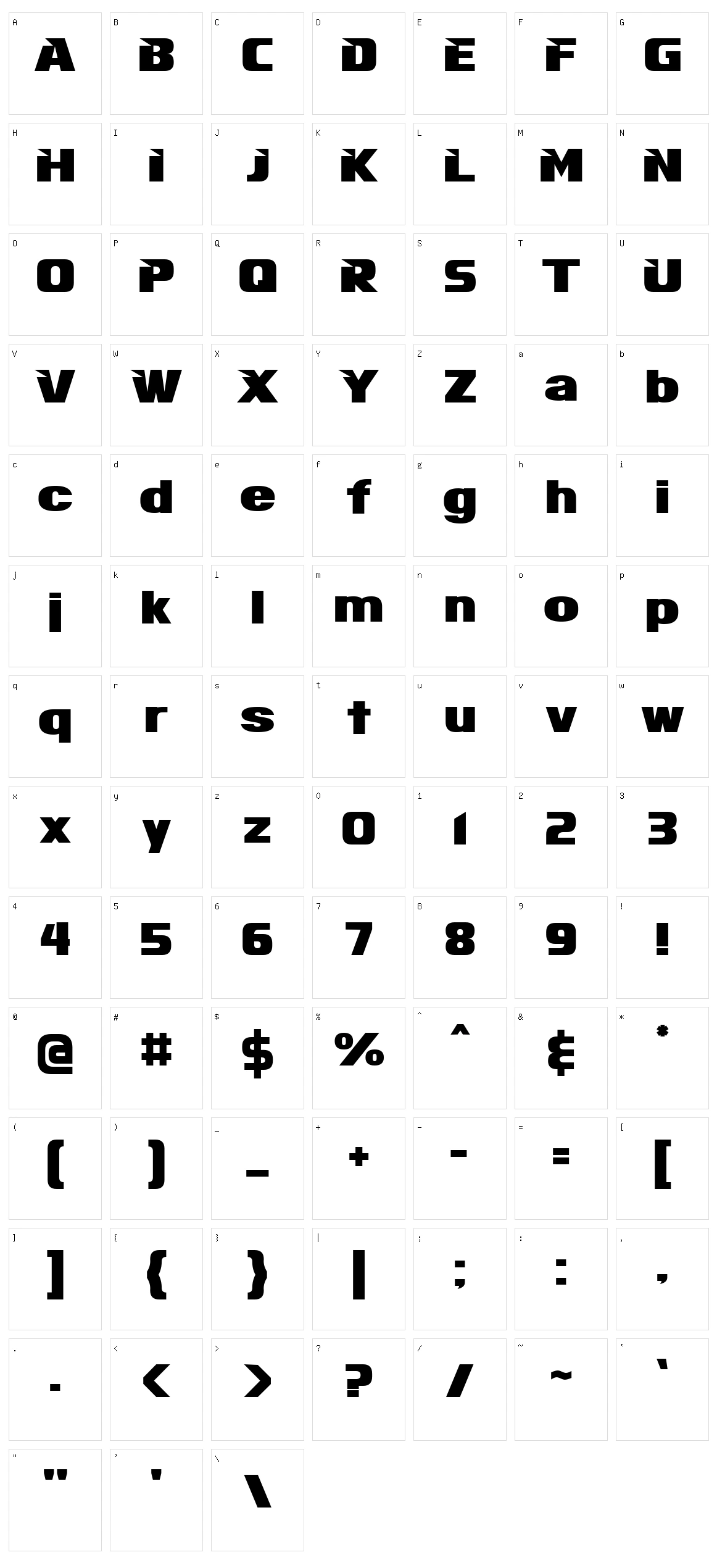
Infinite Justice
Designed by: Insanitype
Thanks for downloading "Infinite Justice" from Insanitype! Font Design. This font is based on the ACDelco font and dedicated to the thousands who losts their lives in the attacks on the World Trade Center in New York and the Pentagon. This is the cleanest font I've done yet, and it works very well at small sizes (it's readable down to at least 7 points anti-aliasing turned off and somewhat readable another 2 points below that. With anti-aliasing on, it's readable at even smaller sizes. This font is so legible that you could type a term paper in it (although it 0is a little bold for a term paper...) As always, please let me know if you use this font or see it in use.